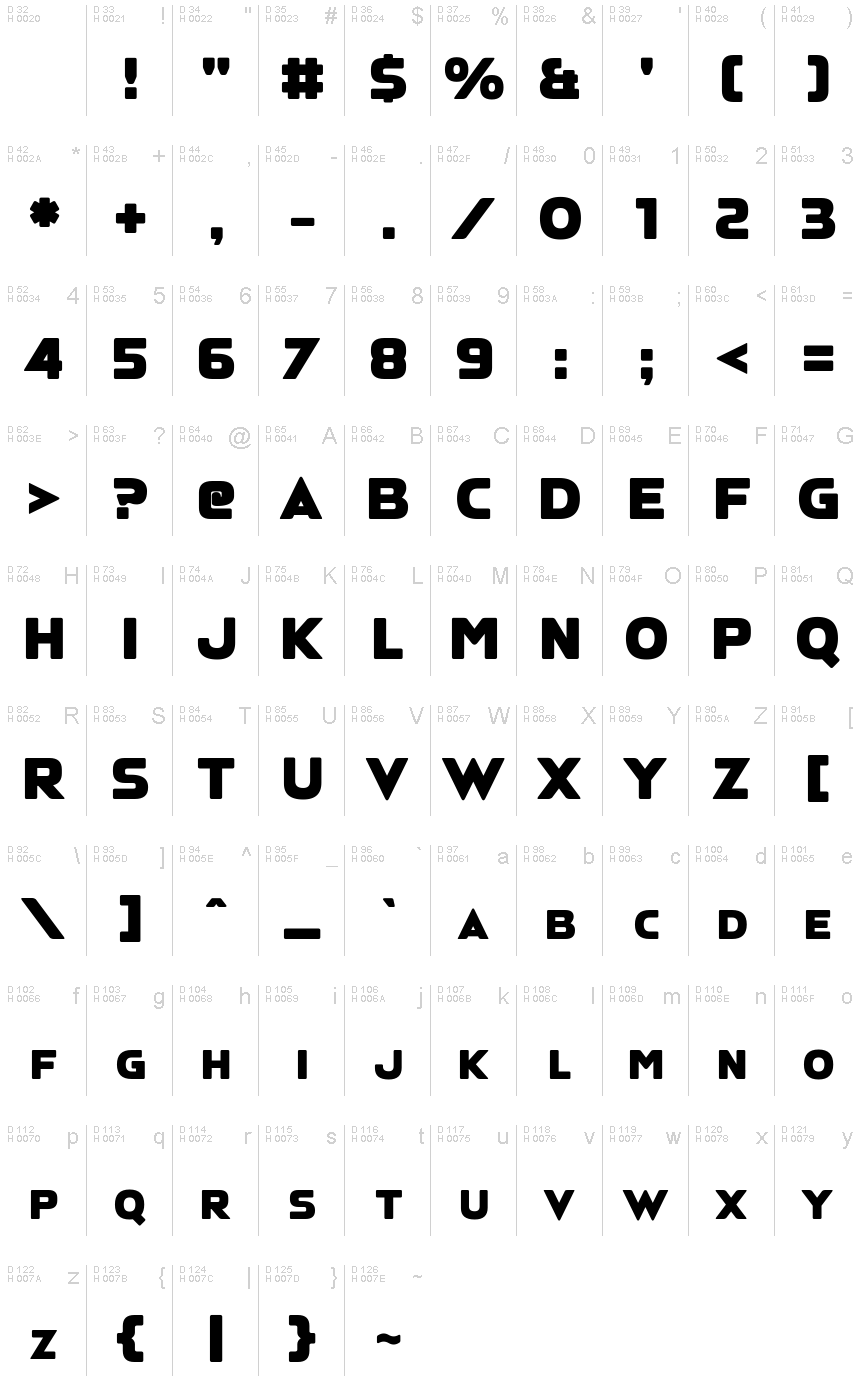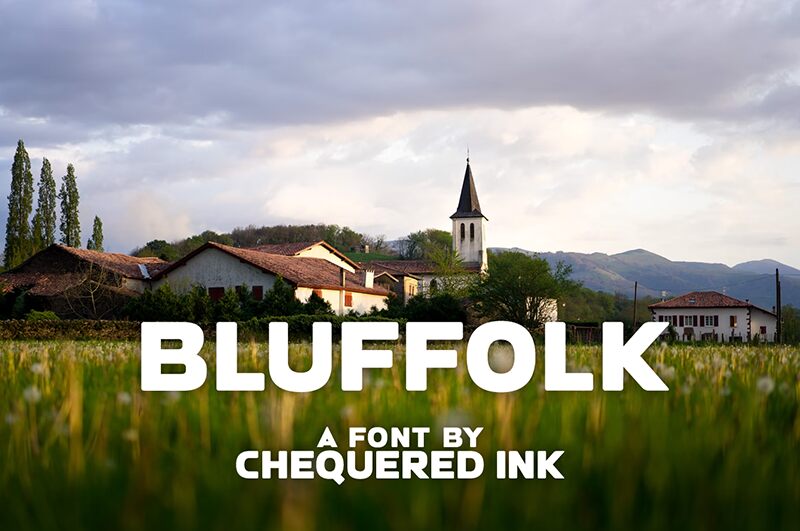
Bluffolk
Bluffolk font was designed by Chequered Ink in a bold, sans serif style. Its strong geometric build is the focal point of this typeface which emits a minimalist modern aesthetic with its clean lines and flawless curvatures. The font gets its high-impact presence, not just from its design, but also from the intense weight style it possesses. The combination is certainly coherent and suitable for use in branding and advertising.
Let your projects become noticed with this free sans serif font like never before! Create powerful headings for websites, advertisements, brochures, posters, signage systems, magazine covers/titles/covers/pages etc., or product packaging; the choice is yours! Your blog/website/portfolio can also largely benefit from adopting it as part of its design! A few more possibilities include any card types (business/product labels), architectural presentations/panels/proposals (school or other), stationery designs (letterheads/envelopes) etc.